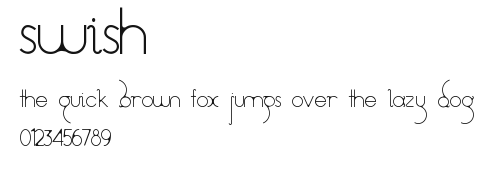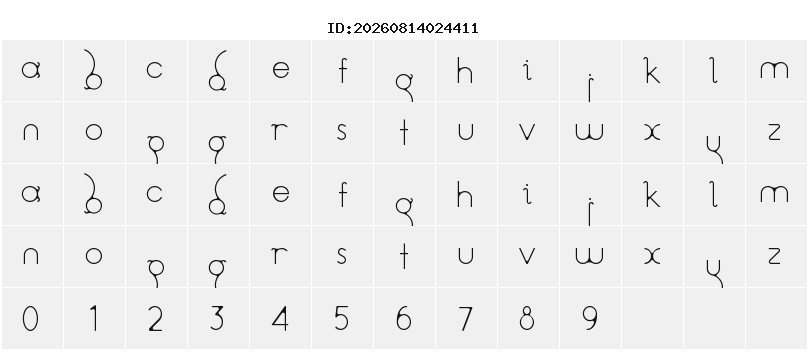
• Font Name: Swish
• Full Font Name: Swish
• Manufacturer: IYBI
About Swish.ttf
Swish.ttf is a modern, elegant sans-serif font designed for ultimate readability and visual harmony. Perfect for branding, headlines, web design, and print materials.